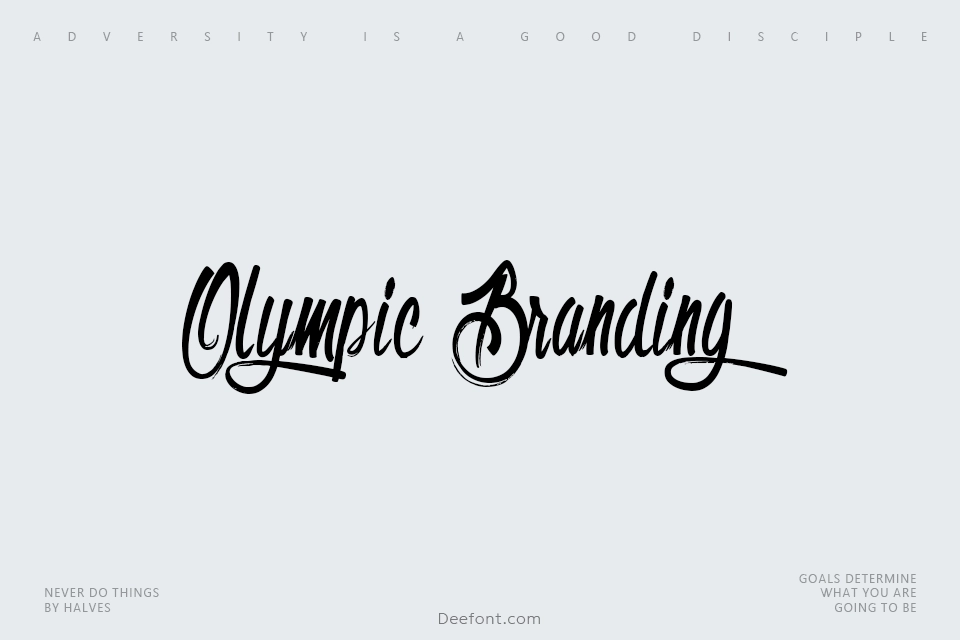
Olympic Branding Font
Olympic Branding is an elegant and dynamic brush script font characterized by flowing, cursive letterforms that convey a sense of movement and sophistication. Featuring ornate uppercase letters with intricate loops and swashes, this decorative typeface is perfect for luxury branding, wedding invitations, event posters, and artistic projects. The font maintains consistent fluidity across uppercase, lowercase, numbers, and special characters, making it versatile for creative applications that demand elegance and expressive design elements.